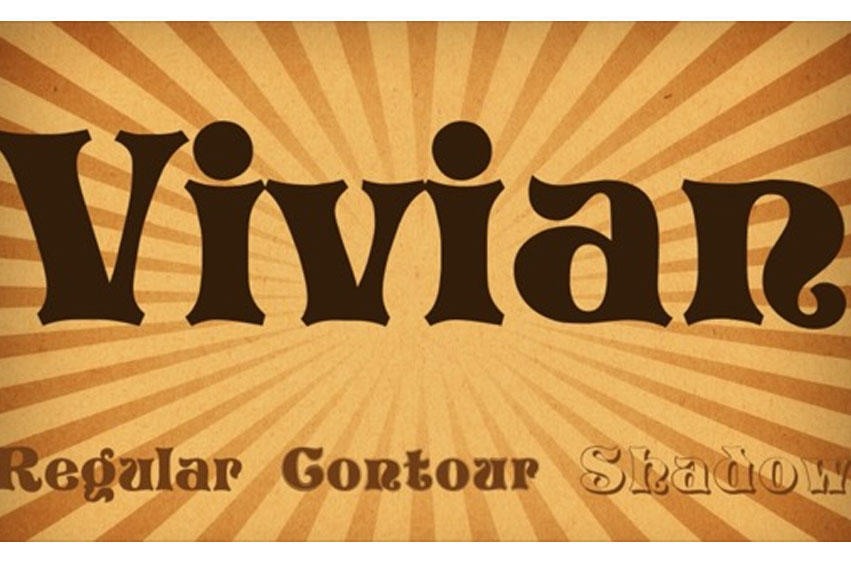
Vivian Font Family is a stylish retro display font that embodies sophistication and classic. With its grid, expansive letterforms, It exudes a everlasting smoothness and adds a touch of glamour to any design. It’s really a vivian xtreme font free download for you.